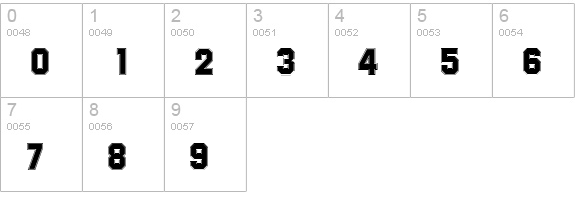
Summit-Regular is the standard, neutral variant in the Summit typeface family \xE2\x80\x94 well suited to general body text, paragraphs, and standard typographic work.
Summit-Regular font is a versatile and modern typeface that exudes elegance and sophistication. With its clean lines and balanced letterforms, this font is perfect for a wide range of design projects, from branding to editorial design. The Summit-Regular font is free to download at FontsMarket.com, making it accessible to designers and creatives looking to elevate their work with a high-quality, professional typeface. Whether you're creating a logo, website, or print materials, Summit-Regular offers a timeless and classic look that will make your designs stand out. Download this exceptional font today and add a touch of class to your projects.